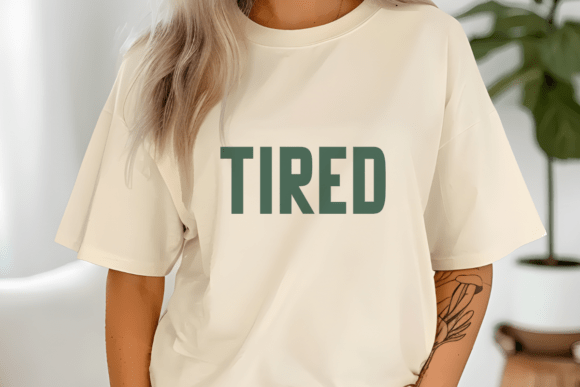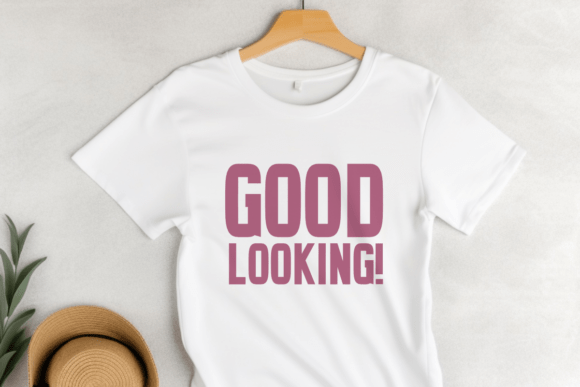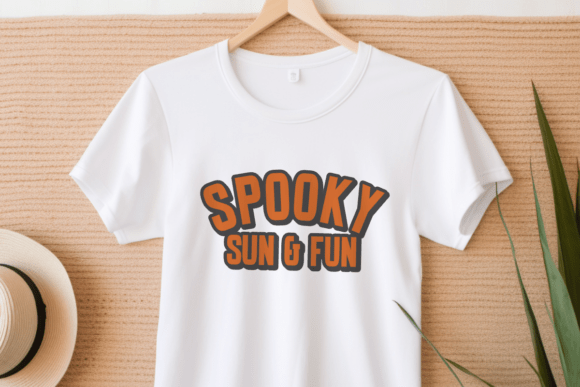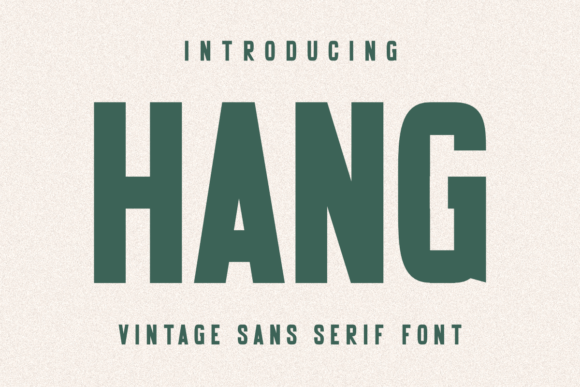
Introducing Hang Font: The Ultimate Choice for Sarcastic Designs
Are you tired of using the same old fonts for your designs? Do you want to add a touch of attitude and personality to your creations? Look no further than Hang Font, a bold and unapologetically strong sans serif font with a subtle vintage flair. This all-caps display font is perfect for designers who want to create funny, ironic quotes that look serious but say otherwise.
The Perfect Font for Sarcastic Designs
Hang Font is designed to deliver your message with punch and personality. Its bold and strong sans serif design makes it perfect for designs that speak with sarcasm, sass, and a touch of attitude. Whether you’re creating sarcastic SVG quotes, funny sublimation shirts, sassy mugs, or vintage-style ironic signs, Hang Font is the ideal choice.
What Makes Hang Font Special?
Hang Font is more than just a font – it’s a statement. Its subtle vintage flair adds a touch of sophistication to your designs, while its bold and strong design ensures that your message is heard loud and clear. This font is perfect for:
- Sarcastic SVG quotes that need to stand out
- Funny sublimation shirts that make a statement
- Sassy mugs that add a touch of attitude to anyone’s morning
- Vintage-style ironic signs that speak with sarcasm
- Bold Cricut projects that need a strong and bold font
- Printables with attitude that make a statement
- Digital downloads for Etsy that need a unique and bold font
Why Hang Font is Ideal for Etsy Sellers and Print-on-Demand Entrepreneurs
As an Etsy seller or print-on-demand entrepreneur, you know how important it is to create designs that stand out from the crowd. Hang Font is the perfect choice for creating unique and eye-catching designs that speak with attitude and personality. Whether you’re creating digital wall art, mugs, t-shirts, or any other type of product, Hang Font is sure to deliver your message with punch and personality.
Tips for Using Hang Font Effectively
Here are some tips for using Hang Font effectively in your designs:
- Use it sparingly: Hang Font is a bold and strong font, so use it sparingly to add emphasis to your designs.
- Pair it with other fonts: Hang Font pairs well with other fonts, so experiment with different combinations to find the perfect look for your design.
- Experiment with colors: Hang Font looks great in bold and bright colors, so don’t be afraid to experiment with different color combinations.
- Use it for headlines: Hang Font is perfect for headlines and titles, so use it to add a touch of attitude and personality to your designs.
Hang Font is the ultimate choice for designers who want to create sarcastic and eye-catching designs that speak with attitude and personality. Its bold and strong sans serif design, subtle vintage flair, and all-caps display make it perfect for a wide range of designs, from sarcastic SVG quotes to funny sublimation shirts. Whether you’re an Etsy seller, print-on-demand entrepreneur, or designer, Hang Font is sure to deliver your message with punch and personality.
Get Ready to Add Some Attitude to Your Designs